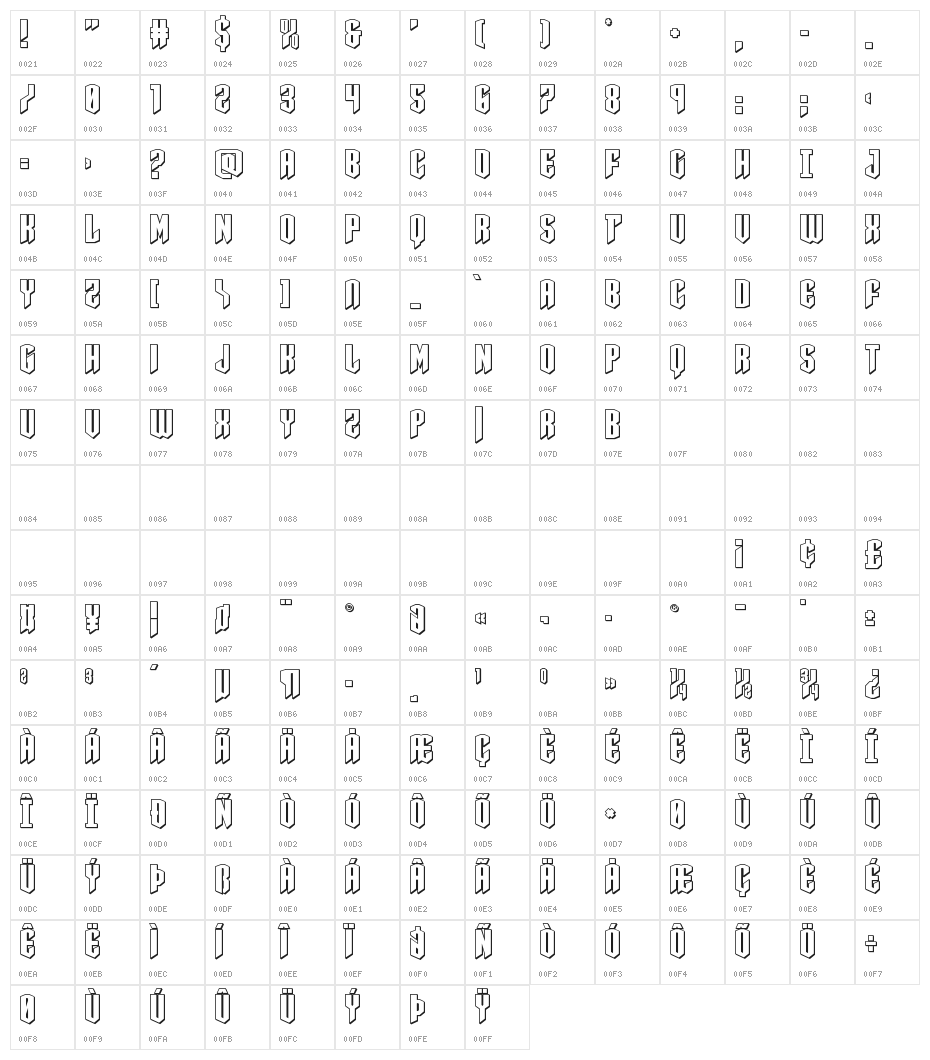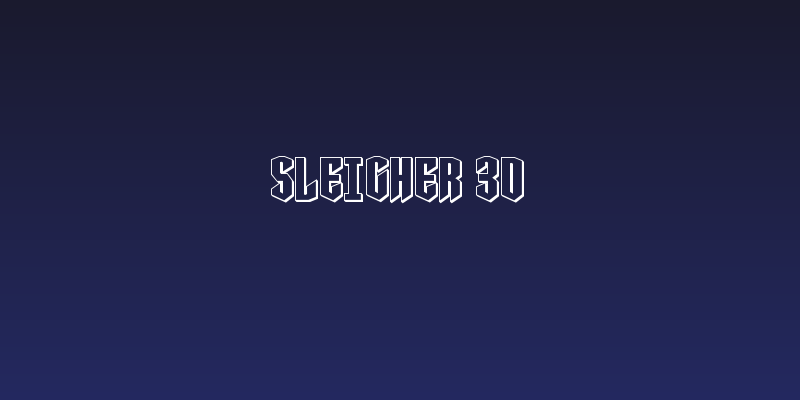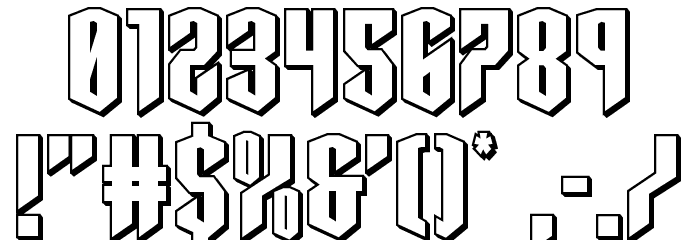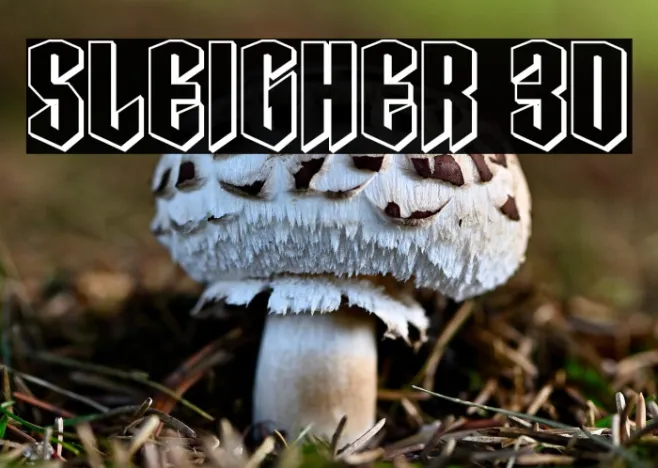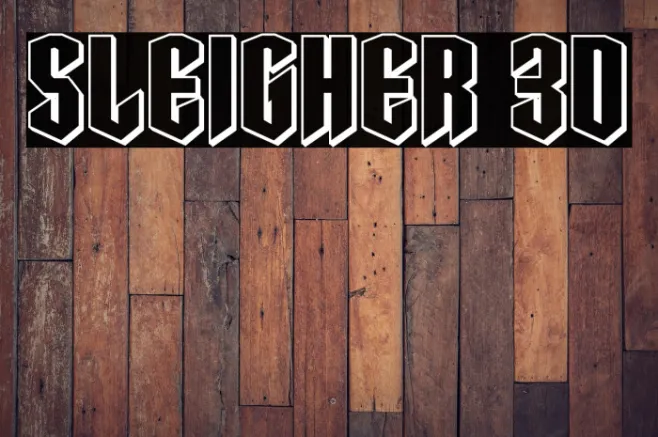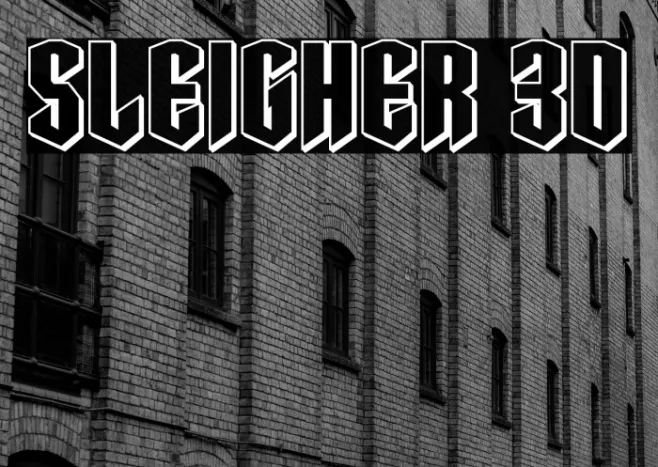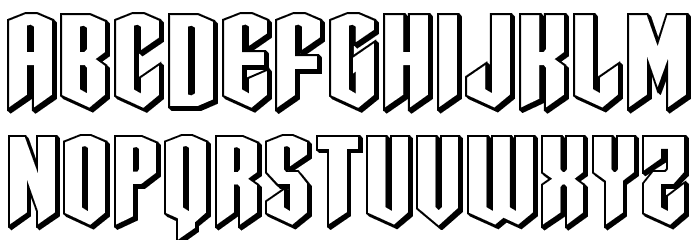
Sleigher 3D Font
Sleigher 3D Description
This font features a bold, three-dimensional design with a strong, angular structure. Each character is outlined with a thick black border, giving it a striking and impactful appearance. The letters are uppercase, with a consistent height and width, creating a uniform look across the alphabet. The numbers and special characters follow the same style, ensuring cohesion throughout. The font's design is reminiscent of graffiti or street art, with a modern twist that makes it suitable for eye-catching displays. Its boldness and unique style make it ideal for projects that require a strong visual impact.